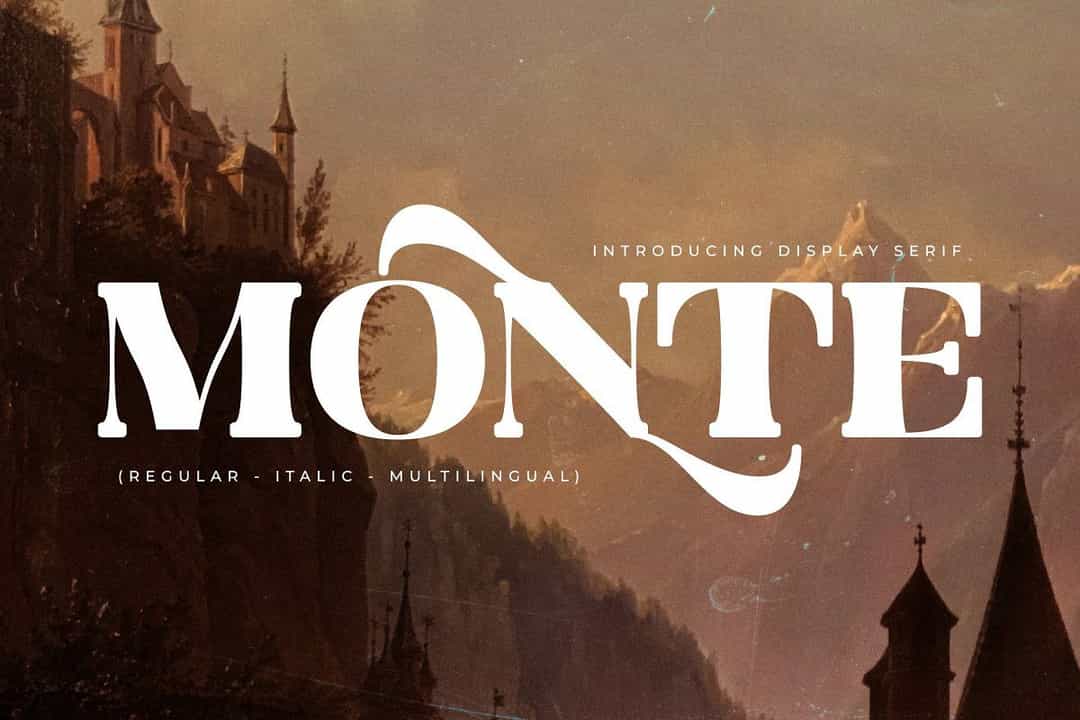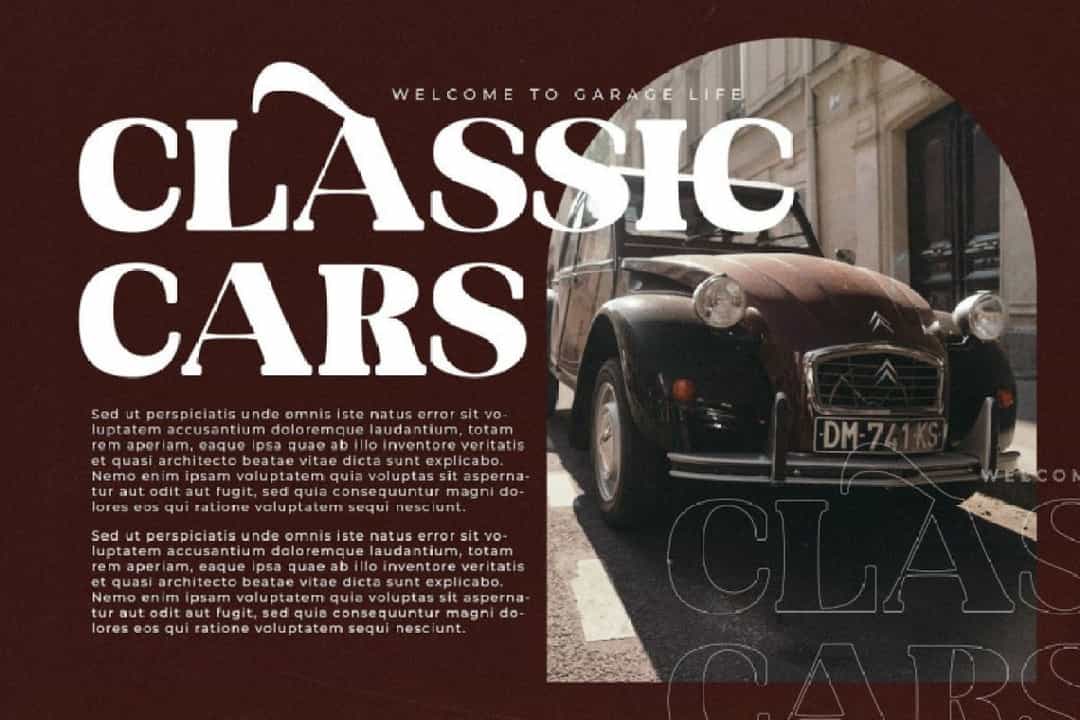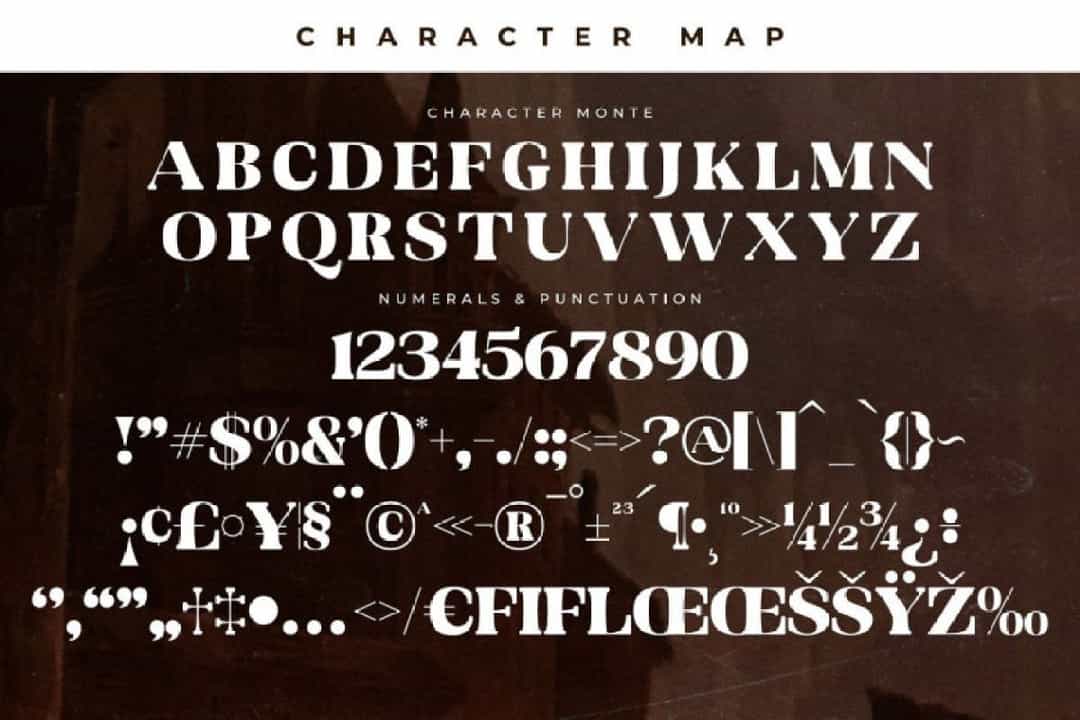
Monte is a timeless serif typeface designed with modern appeal, featuring distinctive style and aesthetic appeal. Perfect for creating classy logos, book or film styles, fashion label clothing labels, magazines letters and quotes; as well as much more!